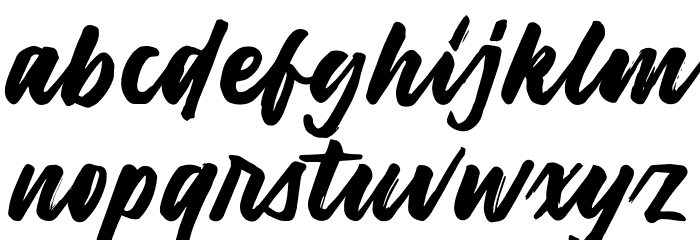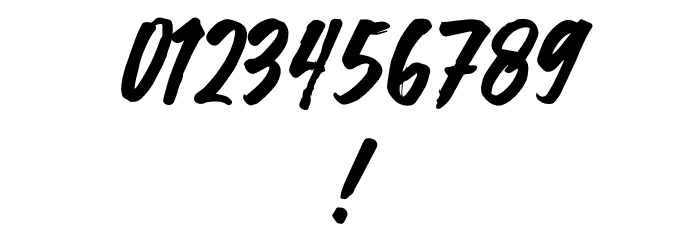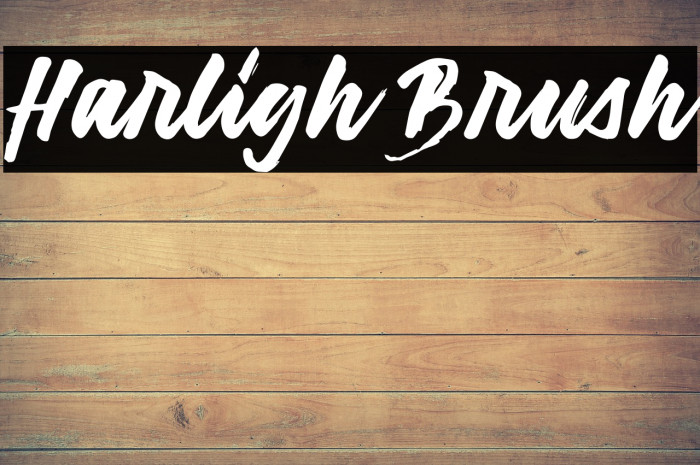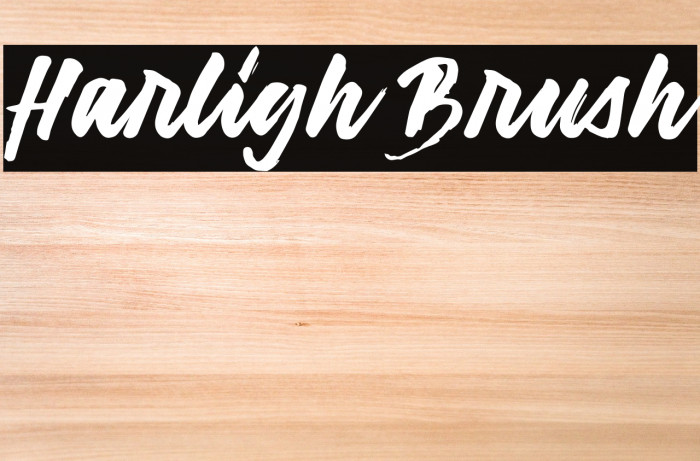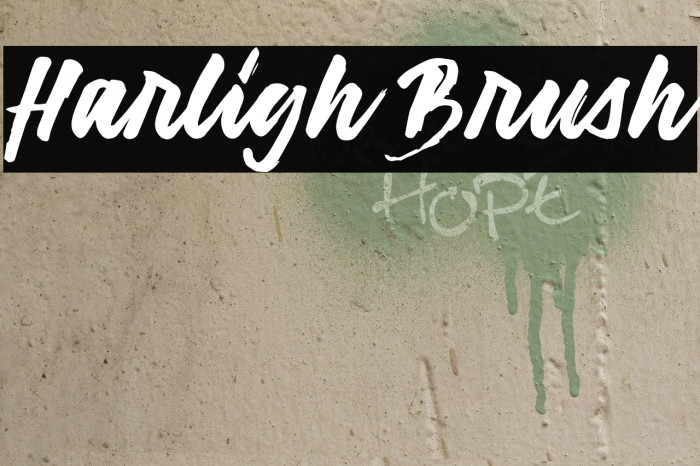
Harligh Brush Font
This font exhibits a dynamic and energetic brush script style, characterized by its bold and fluid strokes. The letters are crafted with a sense of motion, giving them a hand-painted appearance. The uppercase letters are slightly more angular, while the lowercase letters maintain a smooth, flowing form. The numbers and special characters are consistent with the overall style, ensuring a cohesive look. This font is ideal for projects that require a personal and artistic touch, such as invitations, posters, and branding materials. Its bold presence makes it suitable for headlines and titles, where it can stand out and capture attention.
A bold and dynamic brush script font with fluid, hand-painted strokes.
- Proposed Projects: Ideal for invitations, posters, branding, and any project needing an artistic touch.